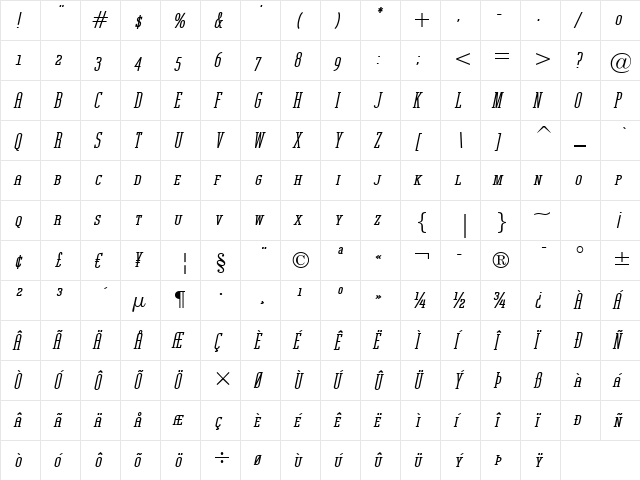
Unknown Caller BTN SC XBd Oblique Font Preview
Design Context for Unknown Caller BTN SC XBd Typeface
Unknown Caller BTN SC XBd takes a measured approach to typography — its balanced proportions and neutral character make it a reliable workhorse for both digital and print work. Its italic angle brings a sense of urgency and motion to the letterforms. The heavy weight commands attention and anchors typographic hierarchies.
Pro Tip: Use Unknown Caller BTN SC XBd for emphasis, pull quotes, and subheadings where its slanted energy can add rhythm to the layout.